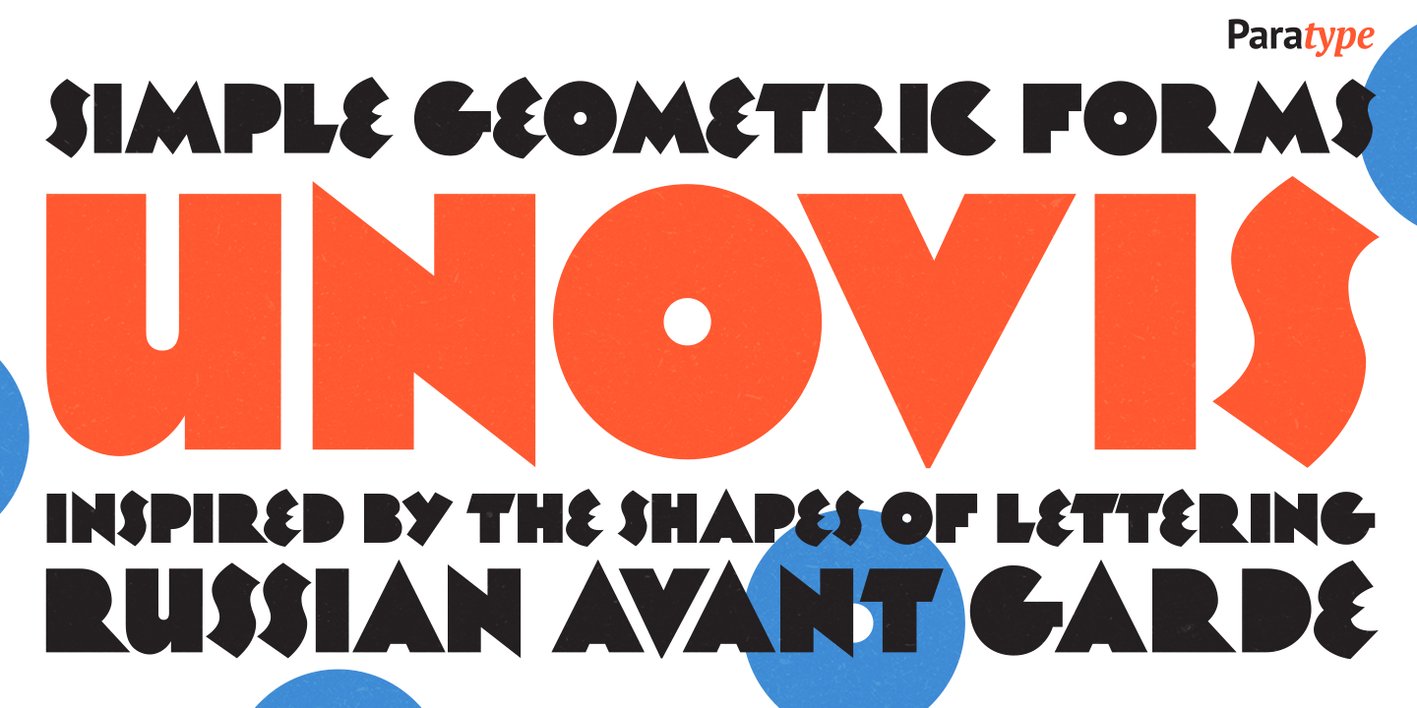
Unovis Font is perfect for avant-garde art exhibitions, constructivist design projects, revolutionary art movements, abstract expressionist galleries, modernist architecture materials, experimental theater productions, progressive design studios, innovative art education programs, contemporary art museums, and visually revolutionary marketing communications.
Unovis Font is exciting because it embodies the radical innovation and artistic revolution of the Russian avant-garde movement with its geometrically bold letterforms that seem constructed from pure artistic vision and carry the transformative energy that broke traditional boundaries to create entirely new visual languages. Its revolutionarily creative character design reflects both the mathematical precision that drove constructivist thinking and the visionary courage that enabled artists to reimagine the fundamental relationship between form, function, and social progress, making it perfect for brands pioneering artistic innovation and revolutionary design thinking.
Unovis Font family includes thin, light, regular, medium, bold, and black weights, each with corresponding italic versions. The font family also features constructivist ornaments, avant-garde ligatures, revolutionary symbols, and geometric decorative elements that enhance its innovative aesthetic and modernist versatility.
This revolutionarily innovative typeface represents the perfect fusion of artistic vision and social transformation. Unovis Font Free Download enables designers to experience its revolutionary potential before making a commercial commitment. The font's ability to convey both artistic sophistication and revolutionary energy makes it ideal for art institutions, progressive design studios, and innovative brands targeting audiences passionate about avant-garde art and revolutionary creative expression.
Whether you're developing contemporary art identities, creating avant-garde exhibition materials, or designing revolutionary communications, Unovis Font brings an unmistakable sense of artistic innovation and constructivist vision to every project. Its geometrically bold character and avant-garde heritage create powerful connections that resonate with artists and audiences seeking cutting-edge creative expression and revolutionary artistic authenticity.
The font's versatility excels in artistic and educational environments where innovation and revolutionary thinking are celebrated. Its avant-garde character makes it particularly effective for art museums, design schools, progressive galleries, and innovative organizations seeking to establish visionary relationships with artists and audiences who appreciate revolutionary art movements and cutting-edge creative expression.
For designers working on projects requiring genuine avant-garde appeal and revolutionary artistic authenticity, Unovis Font offers an exceptional solution. Its revolutionarily bold presence and comprehensive constructivist elements provide the tools needed for creating truly innovative communications, while its artistic vision ensures your designs capture the transformative power and revolutionary spirit that defines the most influential avant-garde art movements and progressive creative excellence.